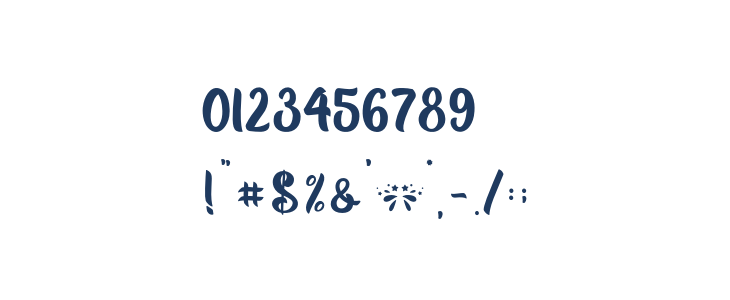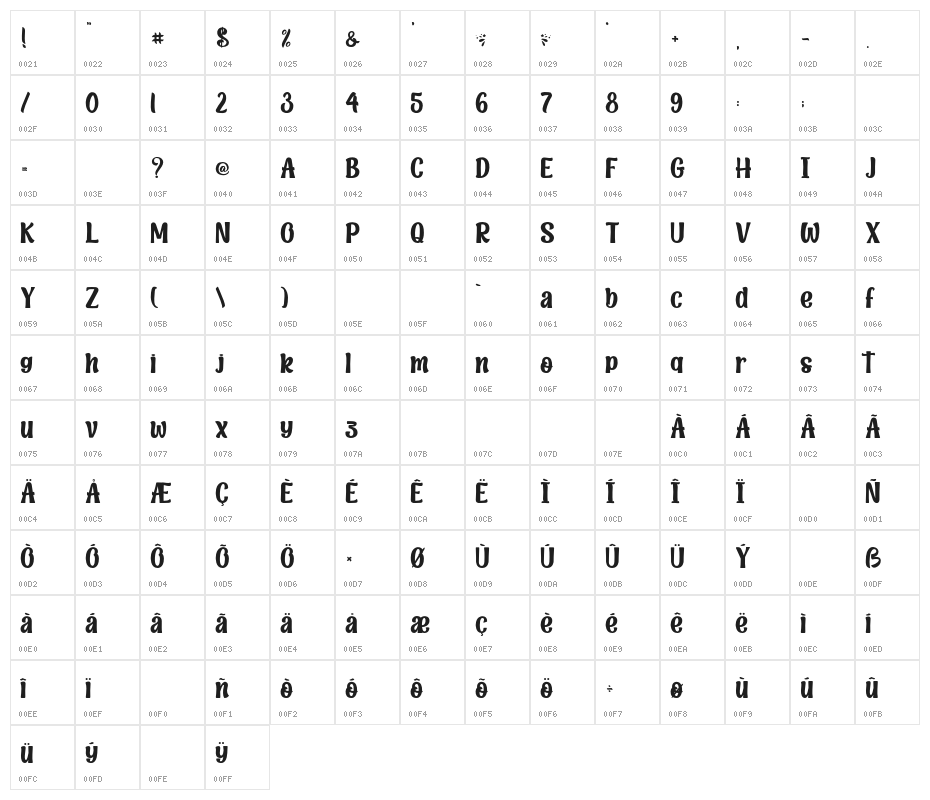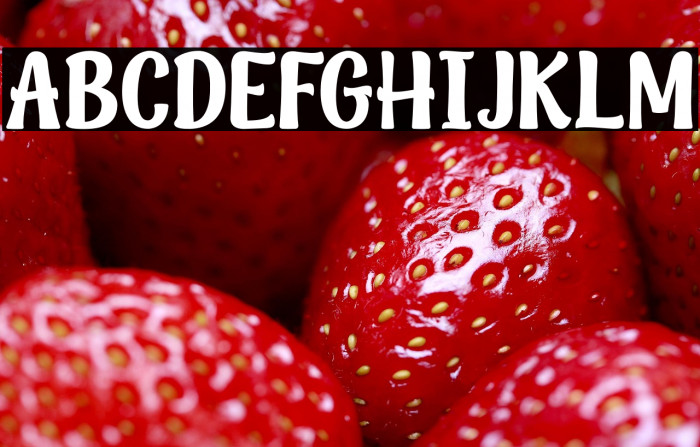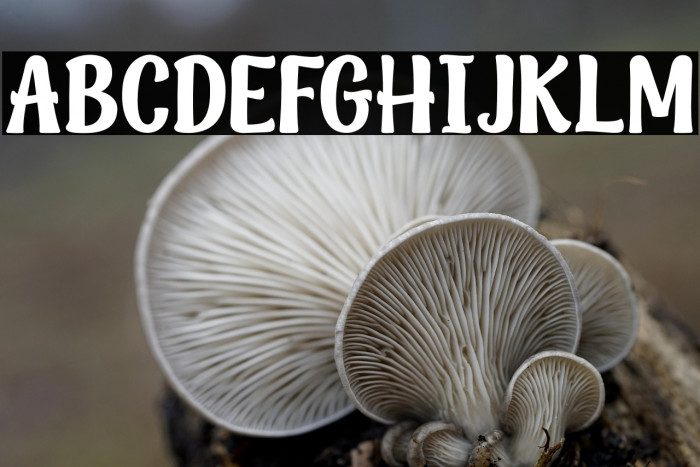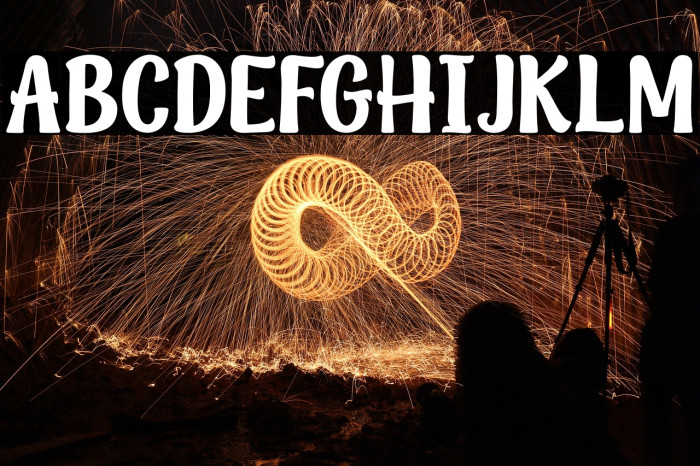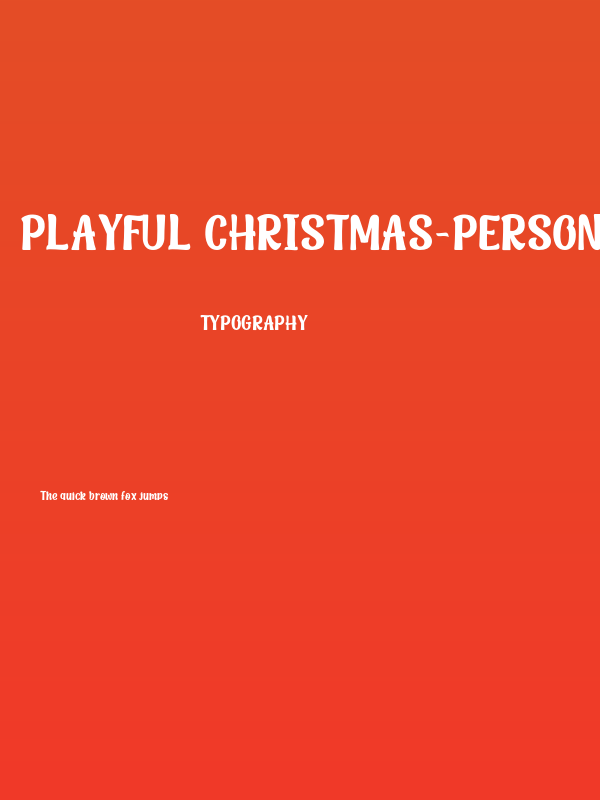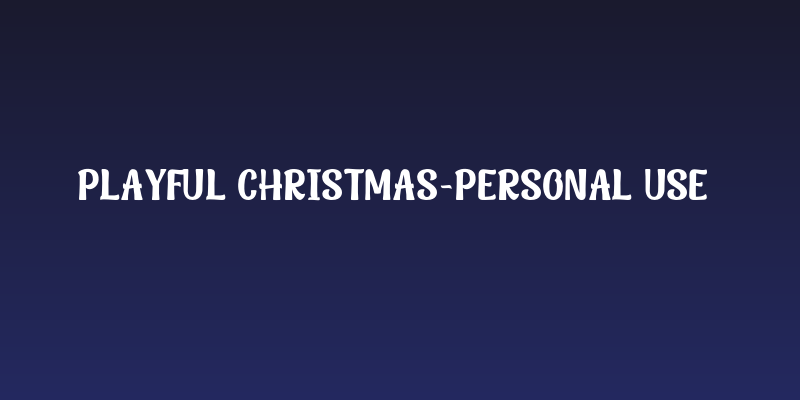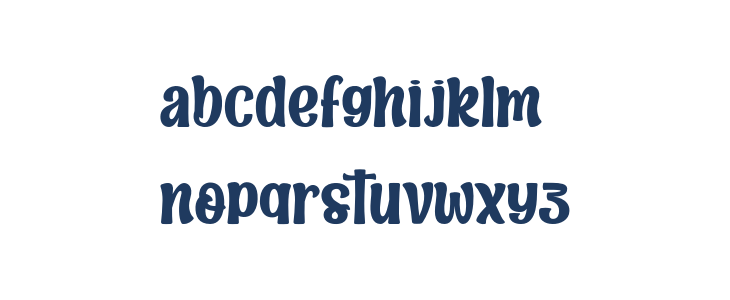
Playful Christmas-Personal Use Font
Playful Christmas-Personal Use Description
This font exudes a playful and festive vibe, perfect for holiday-themed projects. The characters are bold and rounded, with a whimsical touch that adds a sense of fun and joy. The uppercase letters are slightly larger and more pronounced, while the lowercase letters maintain a consistent style that complements the overall design. The numbers and special characters follow the same playful aesthetic, making this font versatile for various creative uses. Its unique style is reminiscent of holiday cheer, making it ideal for designs that aim to capture the spirit of celebration and warmth.
| Overall Style | Playful, Festive |
| Proposed Projects | Ideal for holiday cards, festive banners, playful invitations, and seasonal marketing materials. |